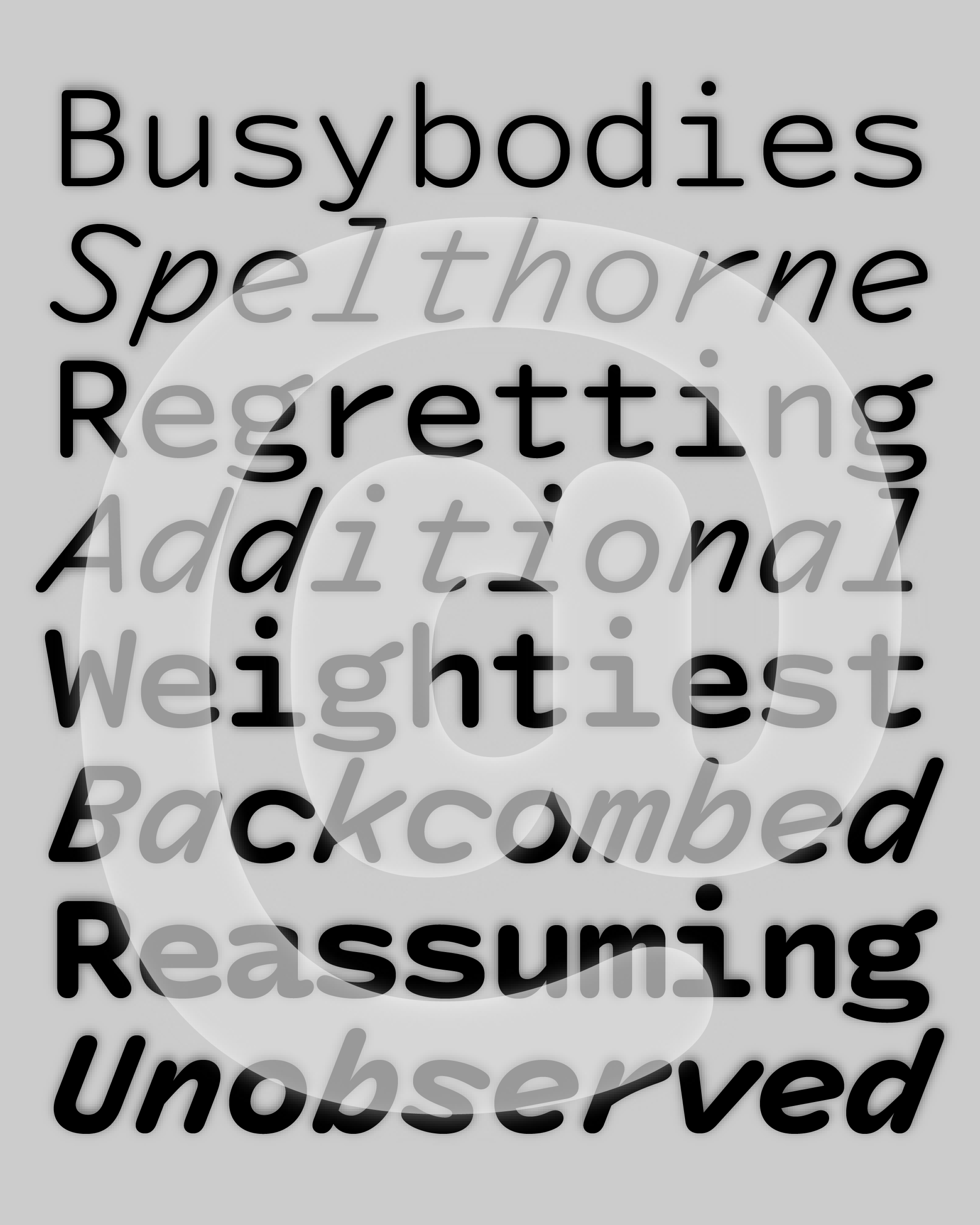
Foundry:
Domicile Foundry
Released:
January 20, 2026
Styles:
8
Category:
sans-serif
Tone:
casual, weird
Use size:
large, medium, small
Width:
mono
Weight:
light, regular, medium, bold
Contrast:
low
Other:
italic, rounded
About the typeface
Dolph YY (“one”) is a soft, monospaced sans serif typeface with with open counters. Contradicting the relatively sober upright styles, the italics perform in a more uncanny manner. Horizontal proportions have been flipped vertically producing an overall top-heavy texture, which adds to the already steep 21 degree slope.